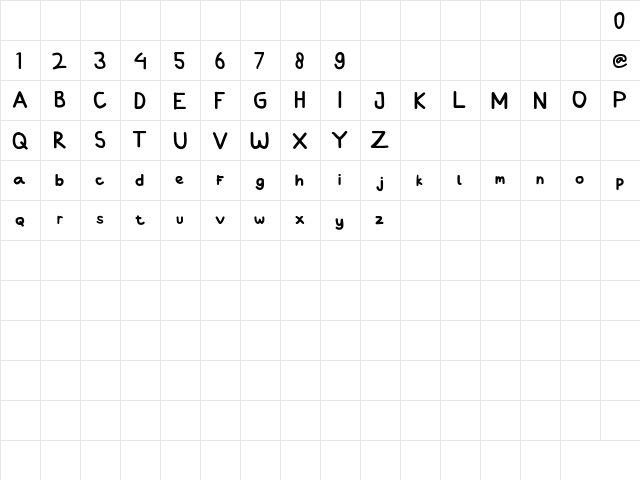
Jackblack Regular
| Foundry | Jefri Design |
| Designer | Jefri Dwi Alfatah |
Design Context for Jackblack Typeface
Jackblack takes a measured approach to typography — its balanced proportions and neutral character make it a reliable workhorse for both digital and print work.